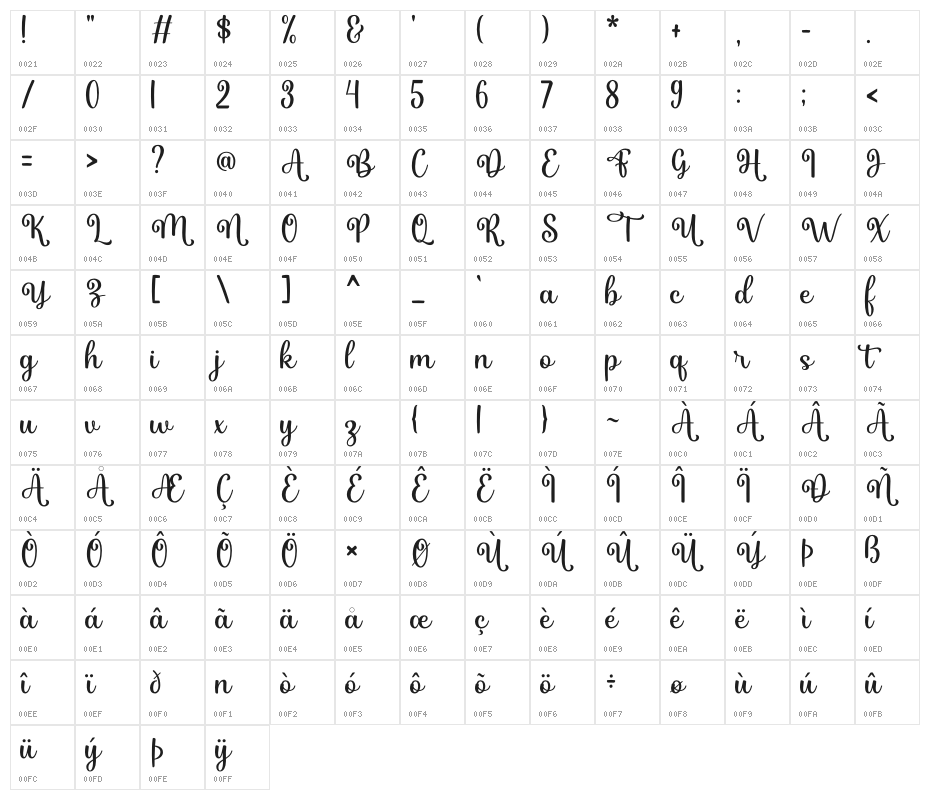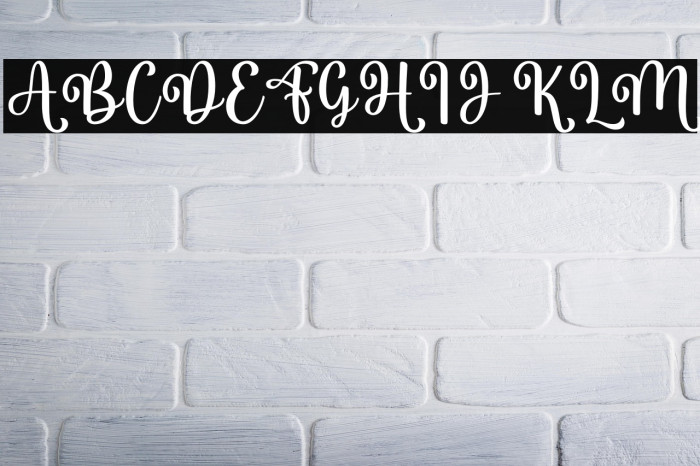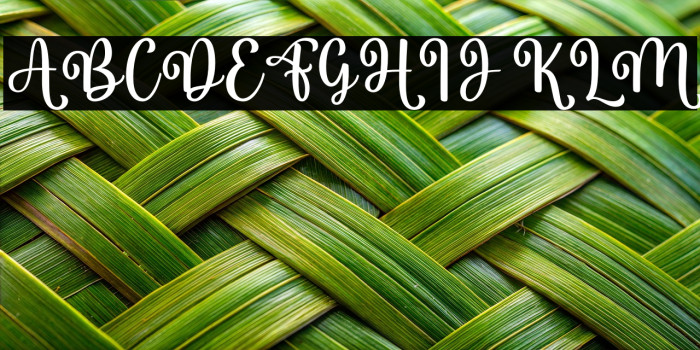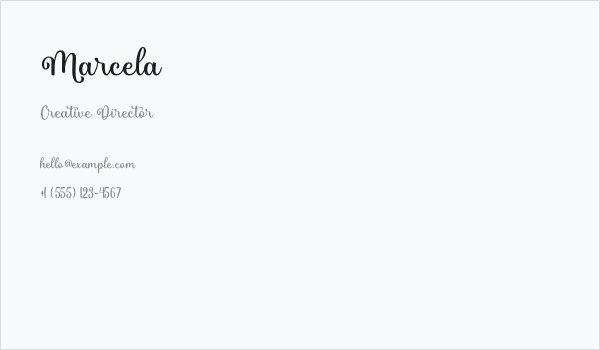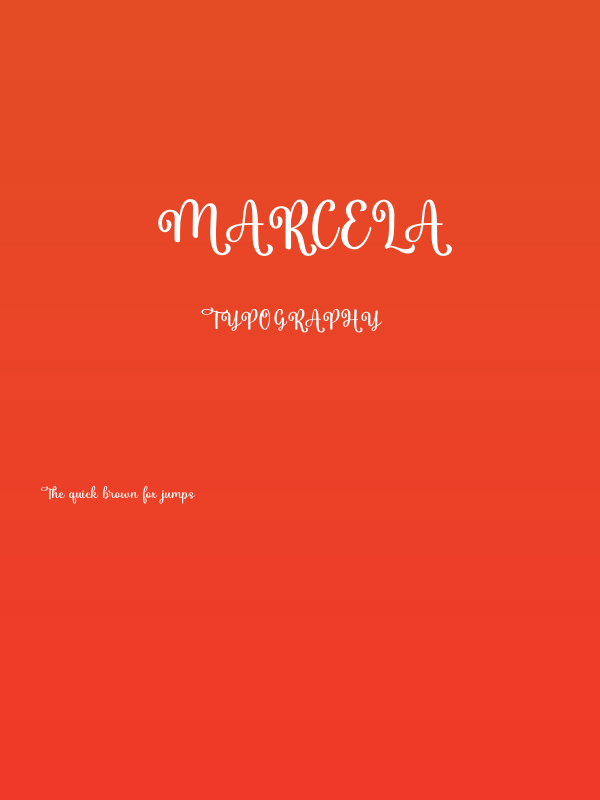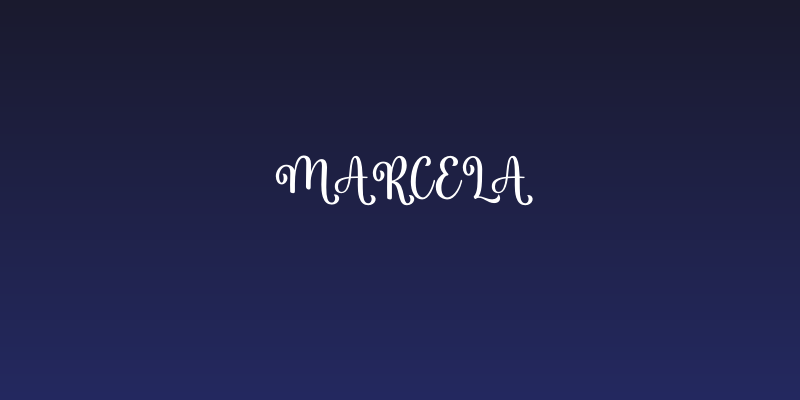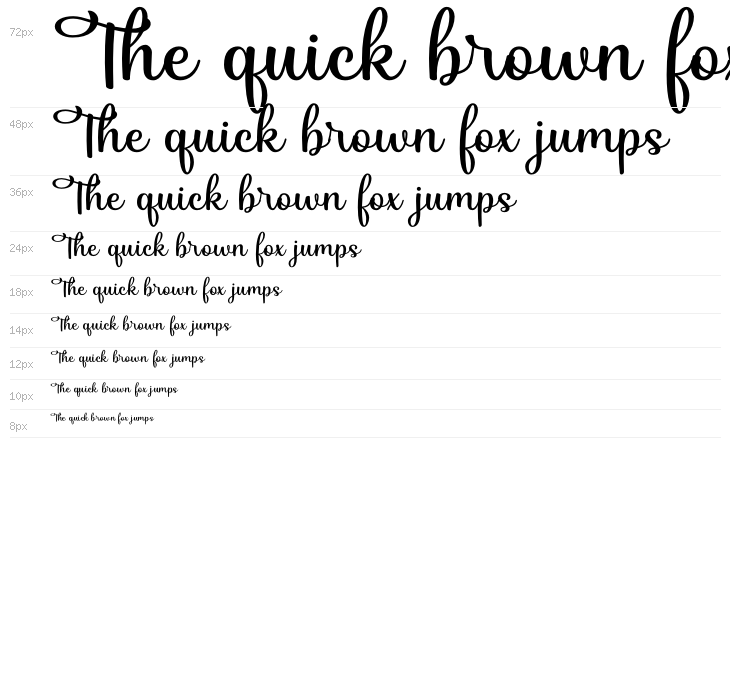
Marcela Font
Marcela Description
This font features a playful and elegant script style with a flowing, cursive design. The uppercase letters are characterized by their looping, decorative strokes, while the lowercase letters maintain a consistent, smooth flow. The numerals are clear and legible, matching the overall whimsical aesthetic. Special characters are integrated seamlessly, maintaining the font's cohesive appearance. The font's style is both modern and classic, making it versatile for various design projects.